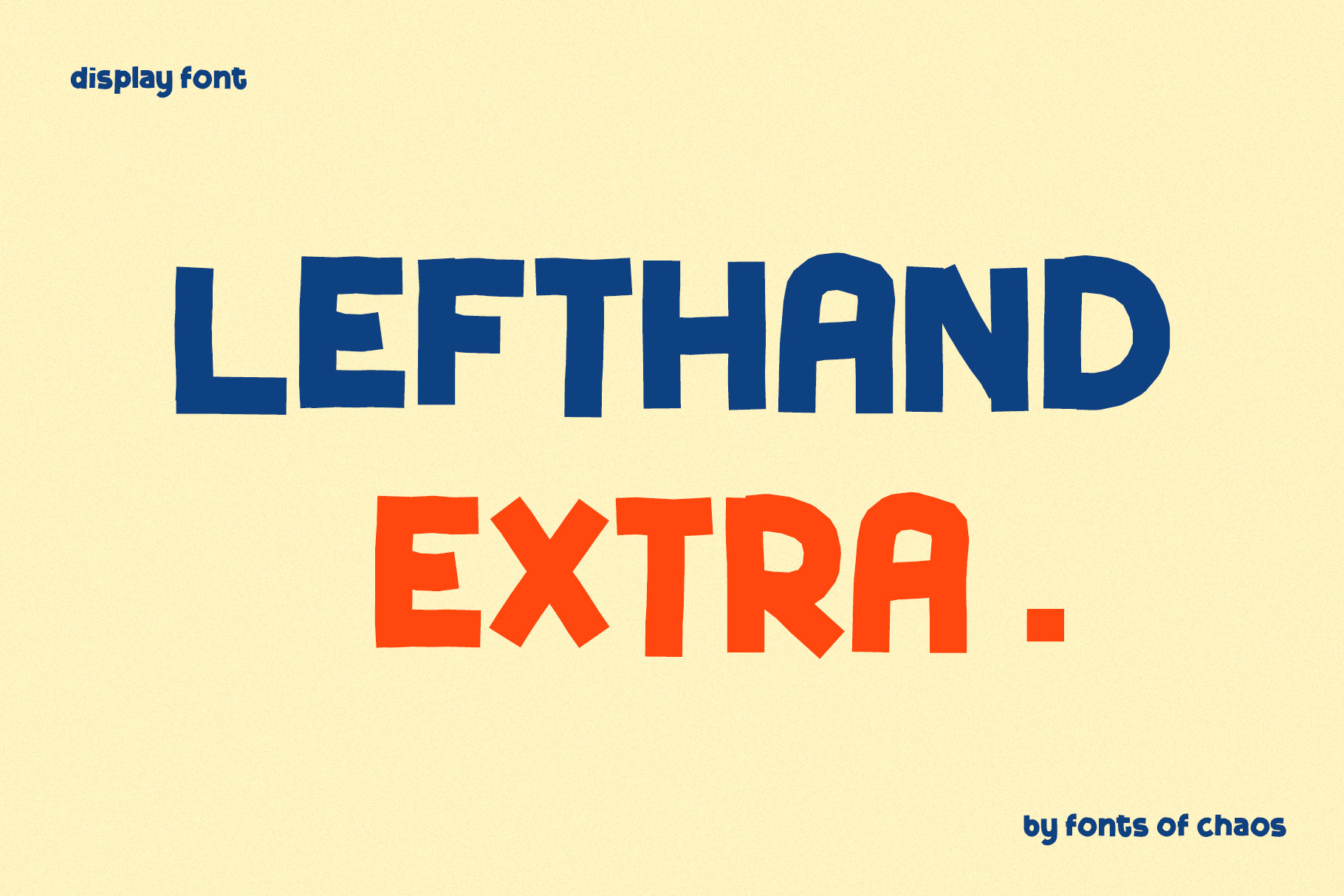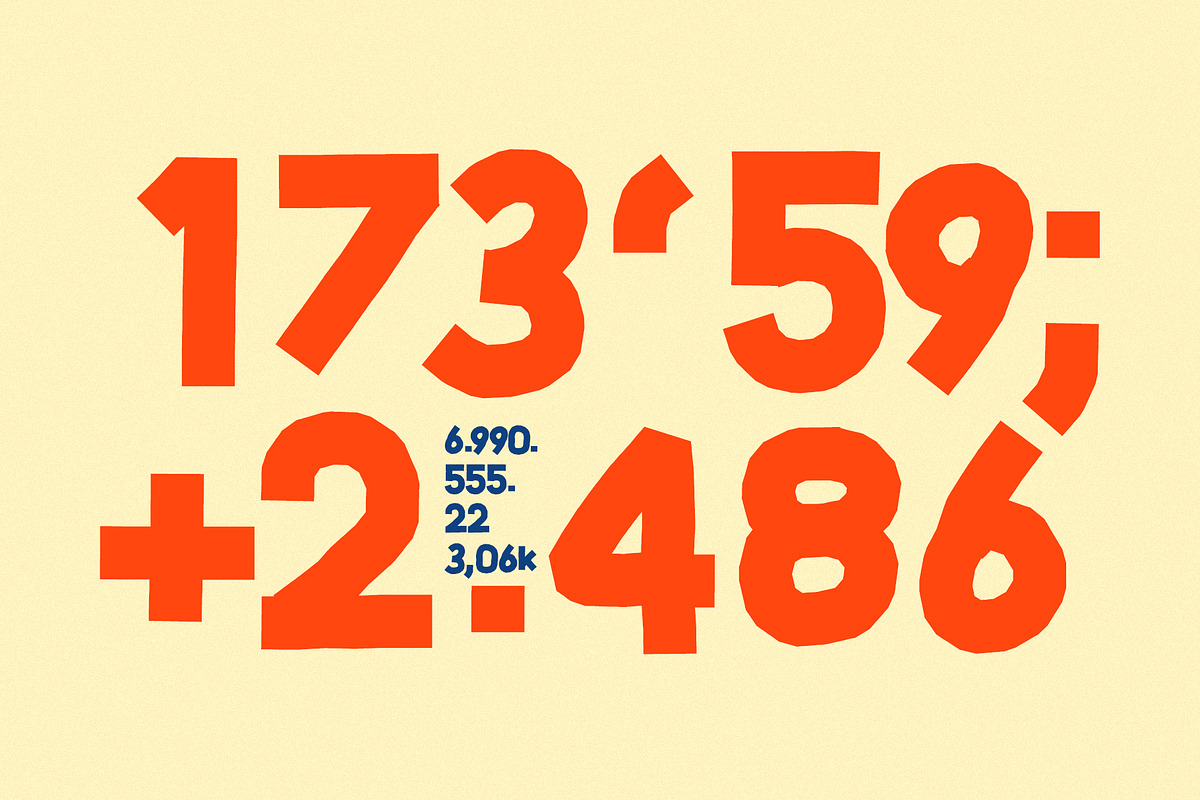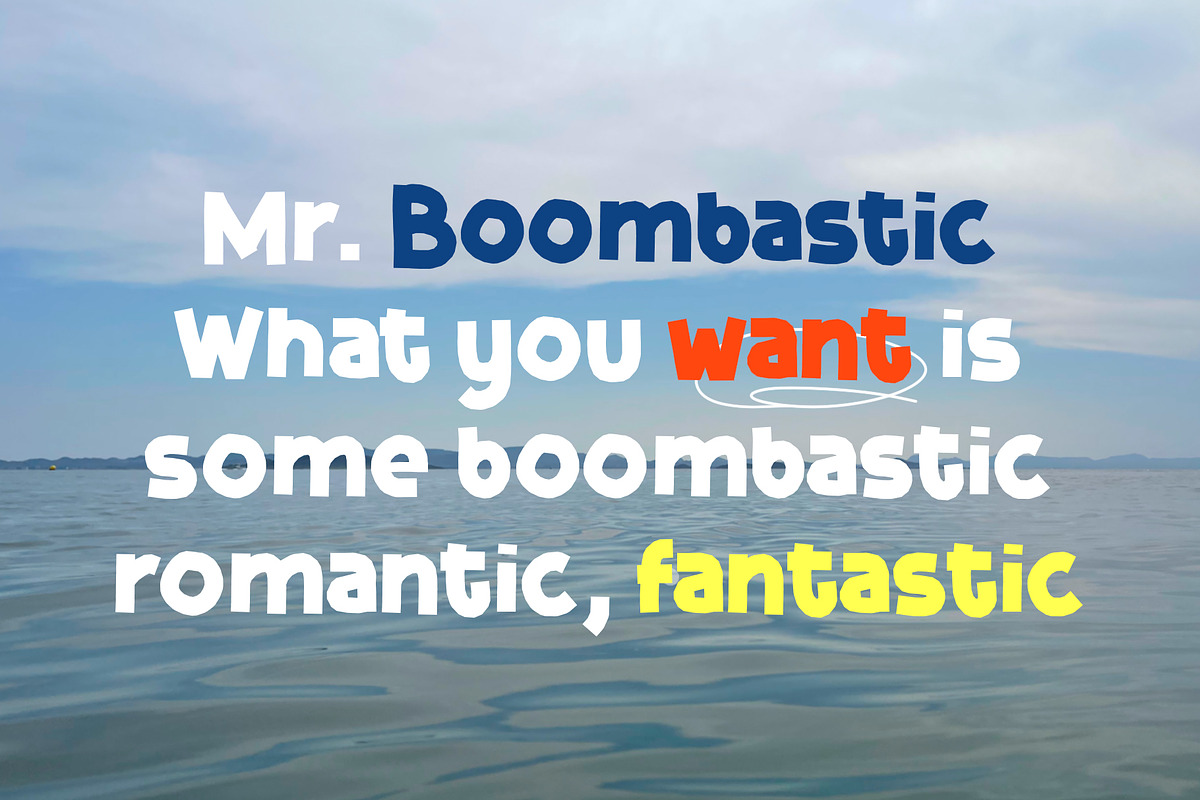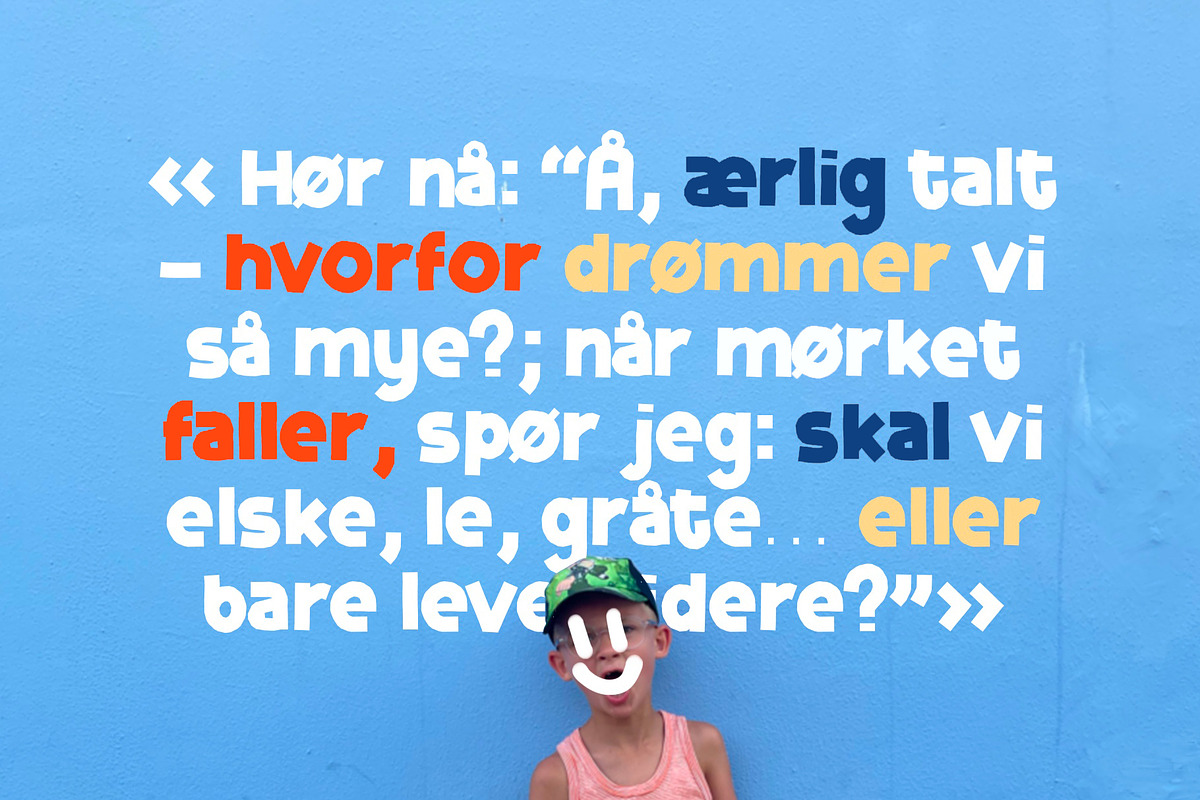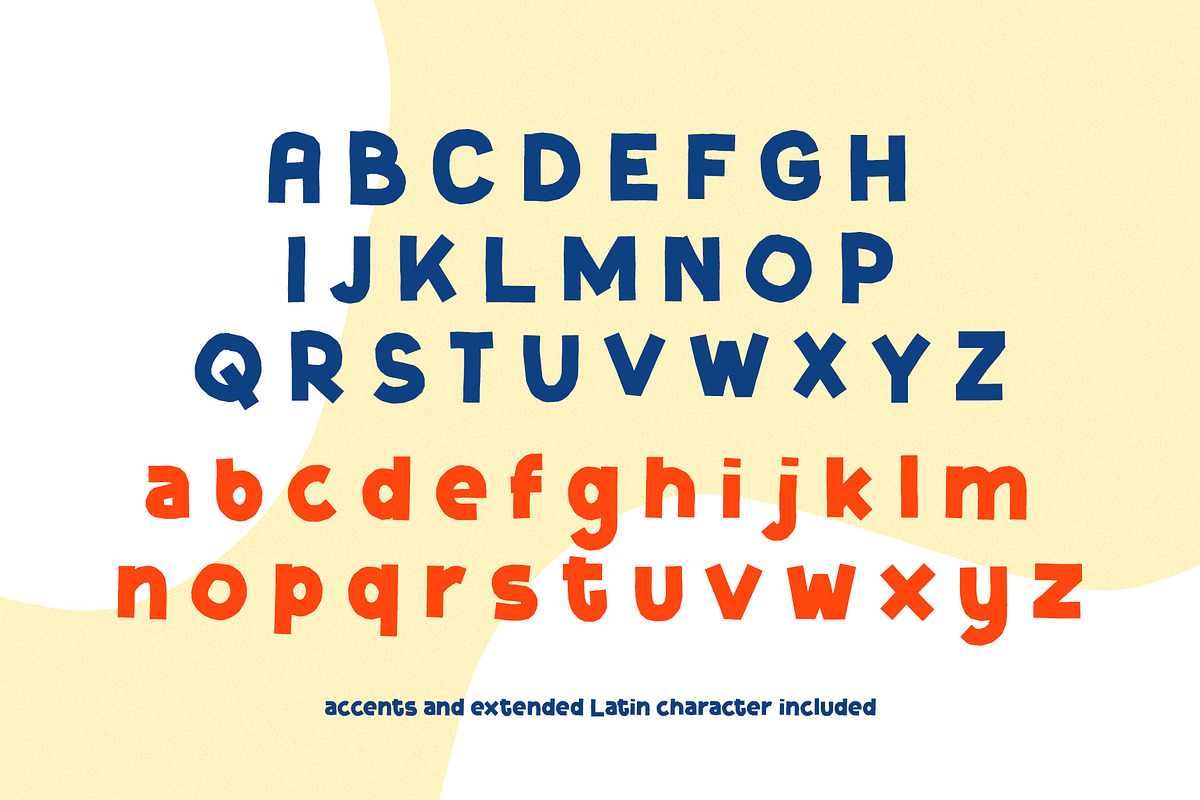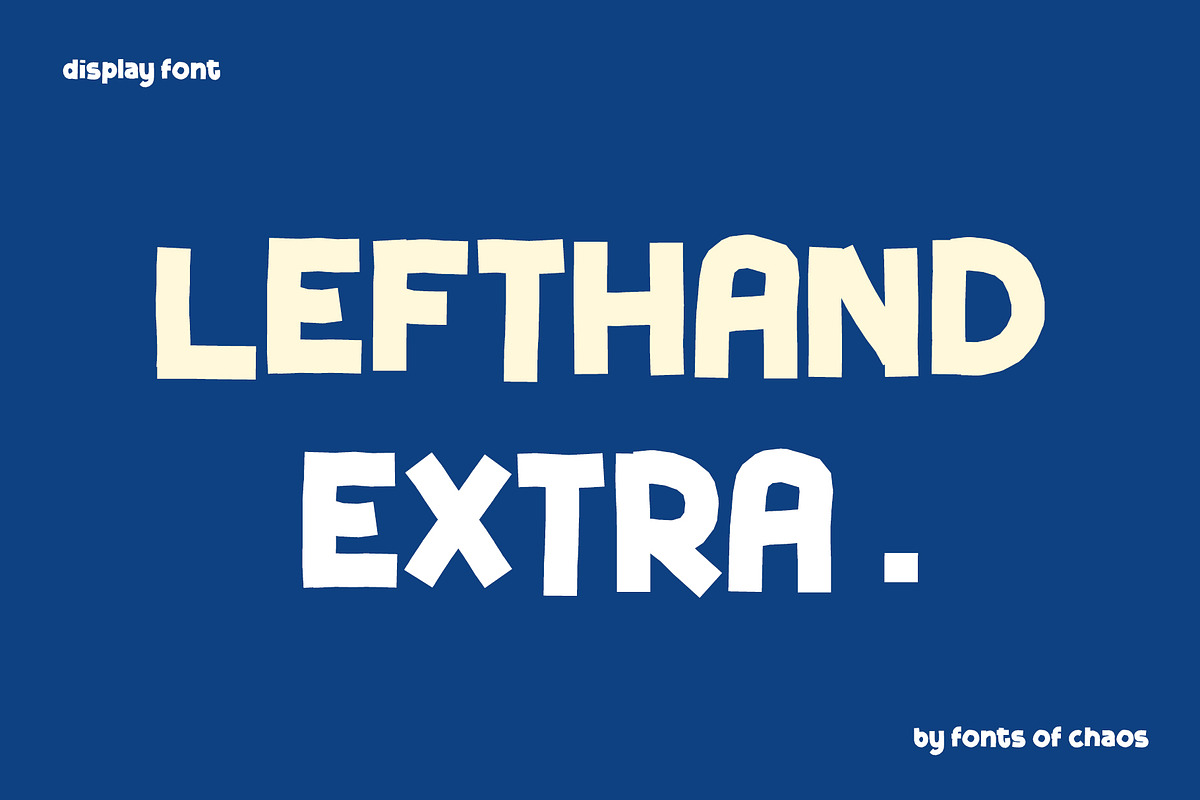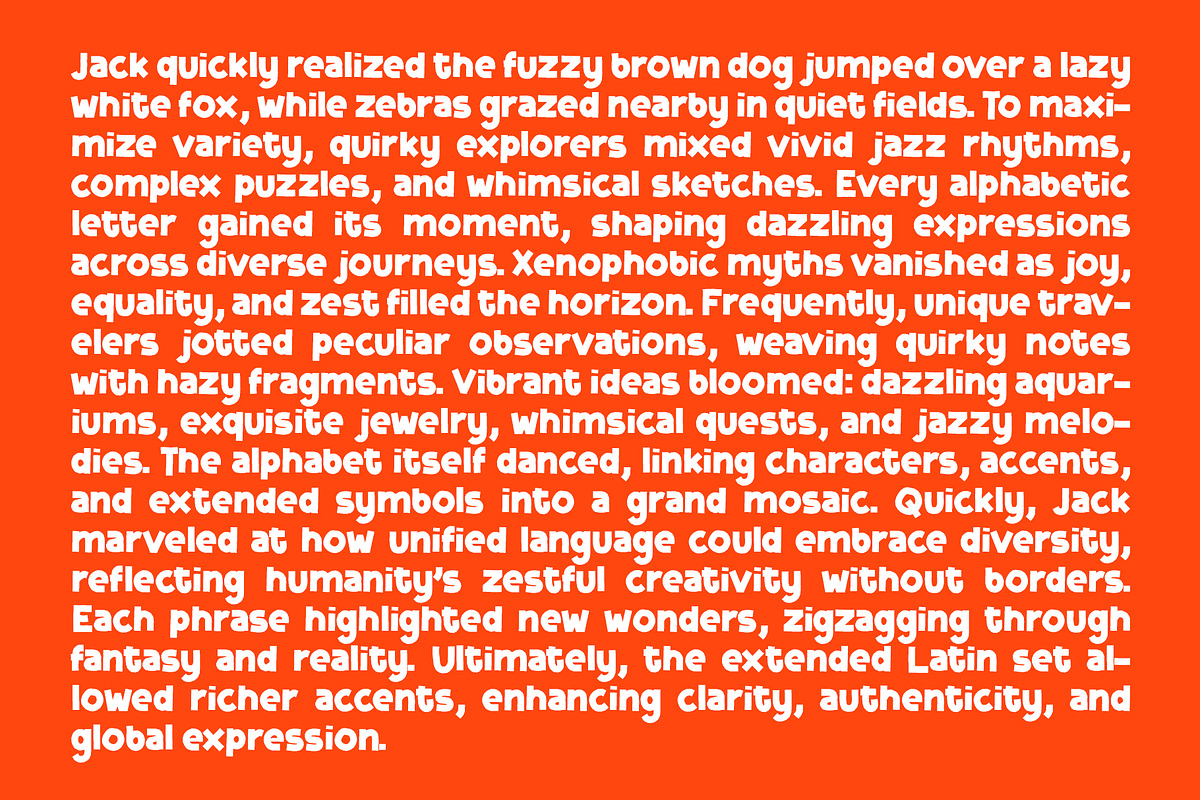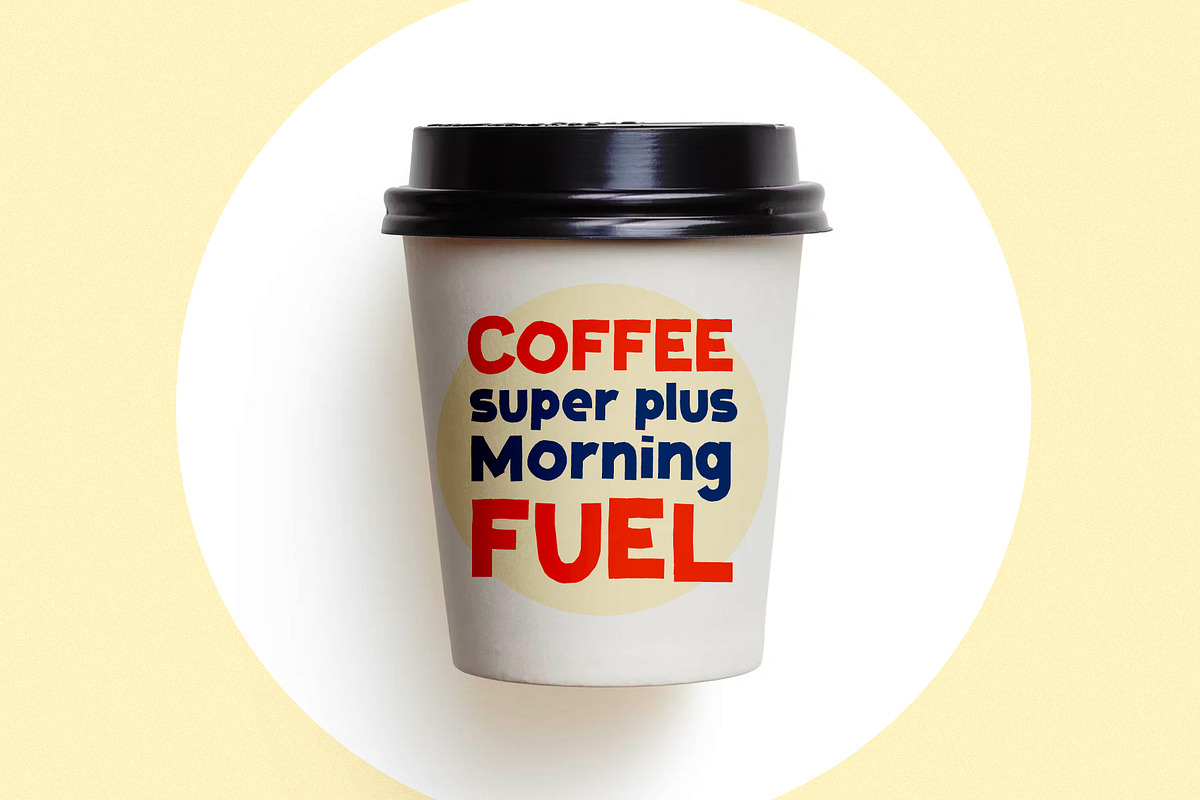
Lefthand extra font - display font
Lefthand extra is a handmade bold display font designed to make a statement. With its thick strokes and handcrafted feel, it delivers a powerful visual impact that’s perfect for strong headlines, branding, and bold creative projects.
Full uppercase & lowercase alphabet (A–Z) Extended Latin accents & special characters Numbers & complete punctuation set Optimized for both print (posters, flyers, packaging) and digital use (web banners, social media, titles)
💡 Perfect for: Logos & brand identity Posters & impactful headlines Editorial design & covers Modern web & social media graphics Packaging & merchandise design
With its thick, expressive shapes, this font instantly conveys strength, authenticity, and presence. It’s the perfect choice when you need typography that stands out and demands attention.